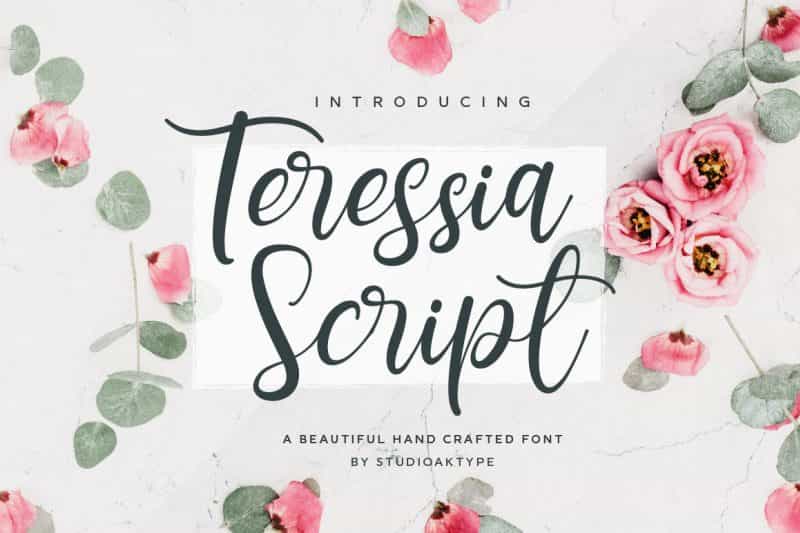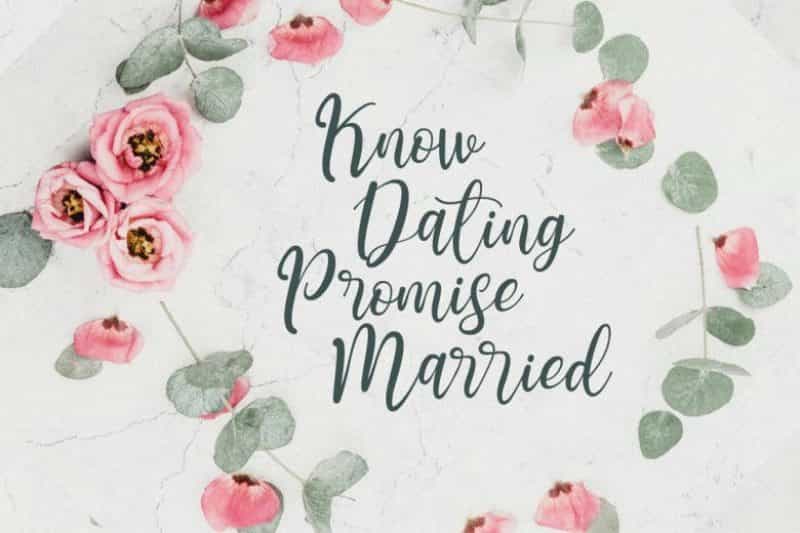
Teressia fonts come in this gorgeous handdrawn tired form with natural hues. Bring in the bit of beautiful flow in your designs. whatever you have set for you design, don’t worry, they’re highly adaptable to all printing processes including foil embossing (gold, silver or any other color you want) and embroidery, and many others.